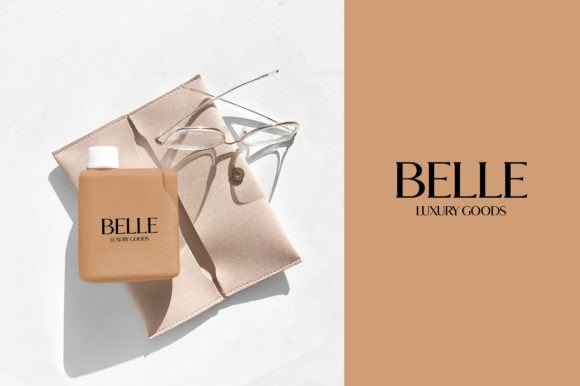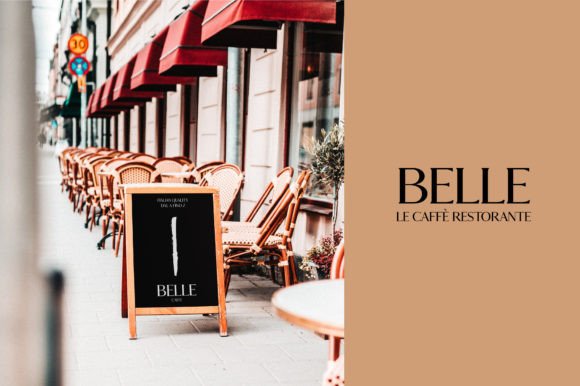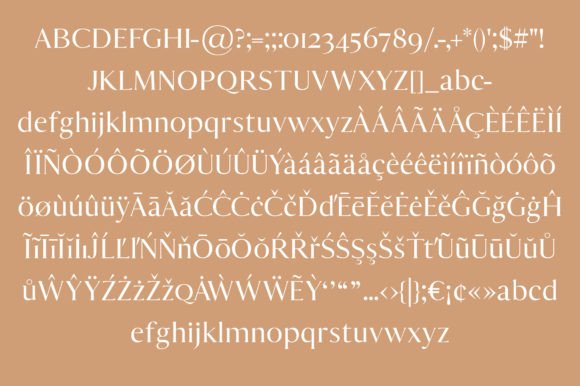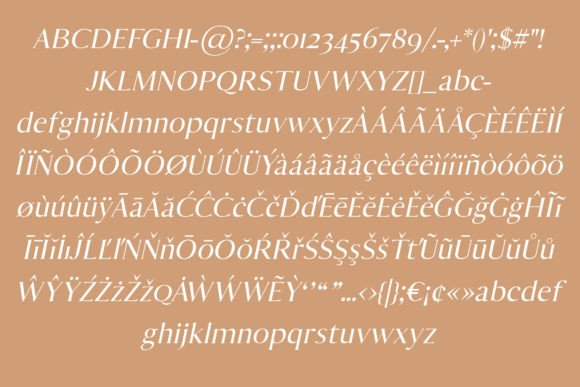
Discover the Elegance of Belle Font: A Minimalist Serif Font for Beauty and Sophistication
In the world of typography, a font can make or break the visual identity of a brand, product, or creative project. For designers and crafters seeking a font that embodies beauty, delicacy, and power, look no further than Belle Font. As the name suggests, Belle is a minimalist serif font meticulously crafted to convey the essence of beauty in every glyph. With its dual offerings of regular and effect styles, Belle Font is poised to elevate your designs to new heights of sophistication and elegance.
The Beauty of Minimalism
Belle Font’s minimalist approach to serif design is a breath of fresh air in a world often dominated by bold and loud typography. Its delicate construction ensures that each character exudes a sense of refinement and poise, making it an ideal choice for projects where beauty and subtlety are paramount. Whether you’re working on branding, logo design, cosmetics packaging, or any other creative endeavor, Belle Font’s understated elegance is sure to leave a lasting impression.
Two Styles, Endless Possibilities
One of the standout features of Belle Font is its versatility, thanks to the inclusion of two distinct styles: regular and effect. The regular style offers a clean and crisp aesthetic, perfect for body text, headings, and other applications where clarity and readability are essential. On the other hand, the effect style adds a touch of sophistication and glamour, ideal for highlighting key messages, creating visual interest, or simply adding a dash of drama to your designs.
Empowering Your Designs
Belle Font’s powerful yet delicate appearance makes it an incredibly versatile tool for designers and crafters. Its confident and assertive presence allows you to create stunning visual identities that command attention without overwhelming the senses. Whether you’re working on a luxury brand, a cosmetics line, or a high-end product, Belle Font provides the perfect blend of elegance and authority to elevate your creations.
Applications and Use Cases
So, where can you use Belle Font to make an impact? The possibilities are endless, but here are a few ideas to get you started:
- Branding: Establish a strong visual identity with Belle Font’s elegant and sophisticated appearance.
- Logo Design: Create a lasting impression with a custom logo that leverages Belle Font’s unique character.
- Cosmetics Design: Add a touch of luxury and glamour to your beauty product packaging and marketing materials.
- Packaging: Elevate your product packaging with Belle Font’s refined and understated style.
Why Choose Belle Font?
With so many fonts available, why should you choose Belle Font for your next project? Here are just a few compelling reasons:
- Unique Aesthetic: Belle Font offers a distinctive and refreshing take on serif typography.
- Versatility: The font’s dual styles and adaptable nature make it suitable for a wide range of applications.
- Elegance: Belle Font’s delicate construction and sophisticated appearance ensure that your designs exude refinement and poise.